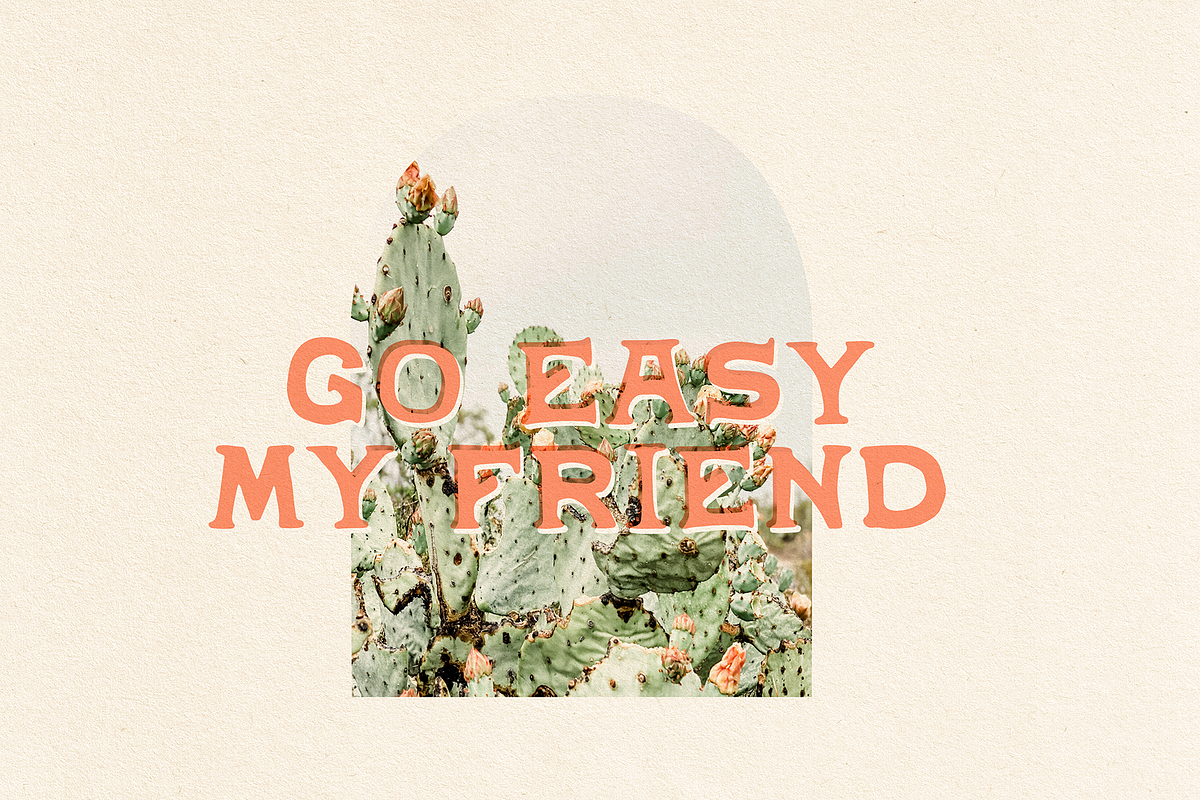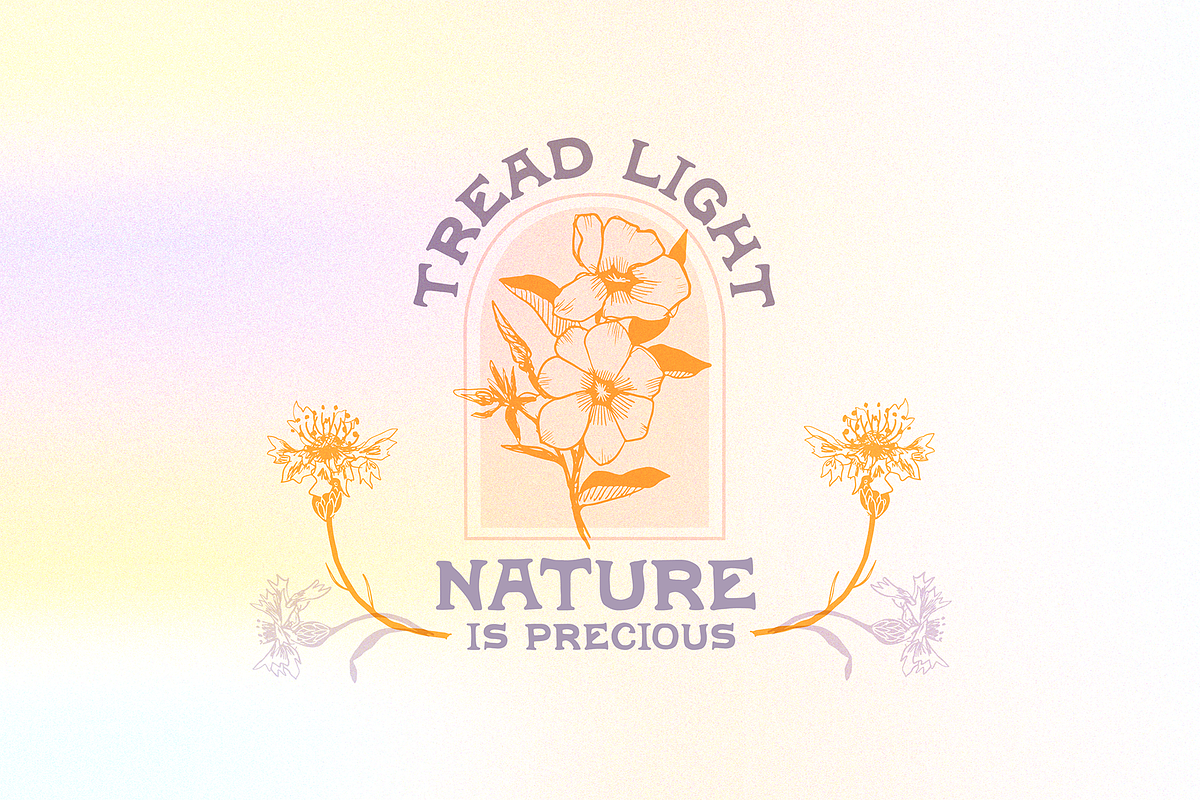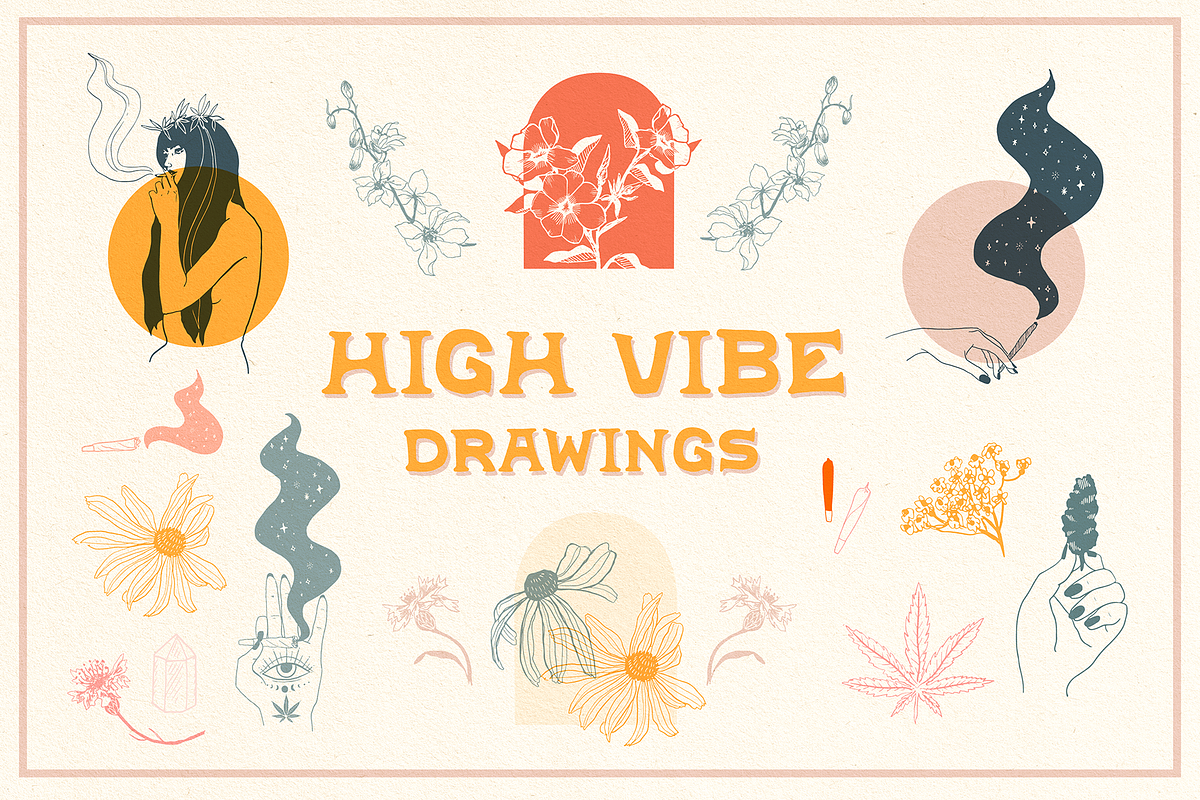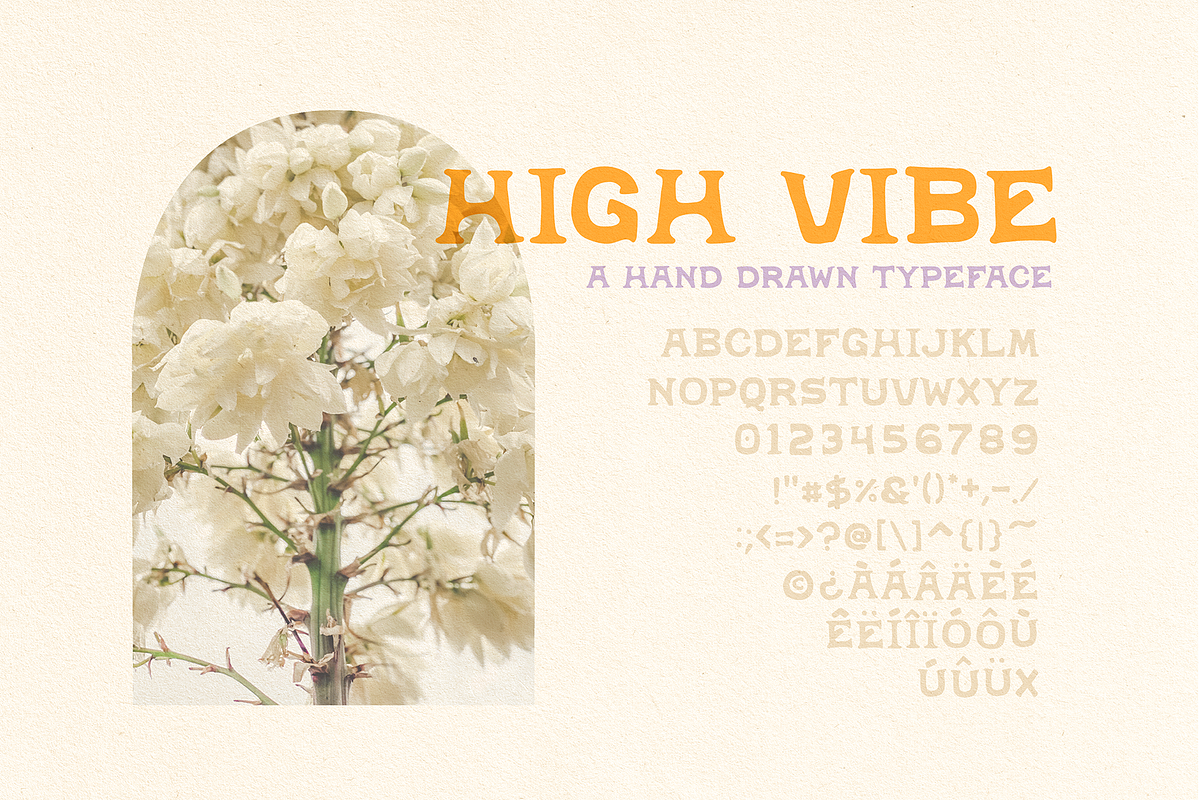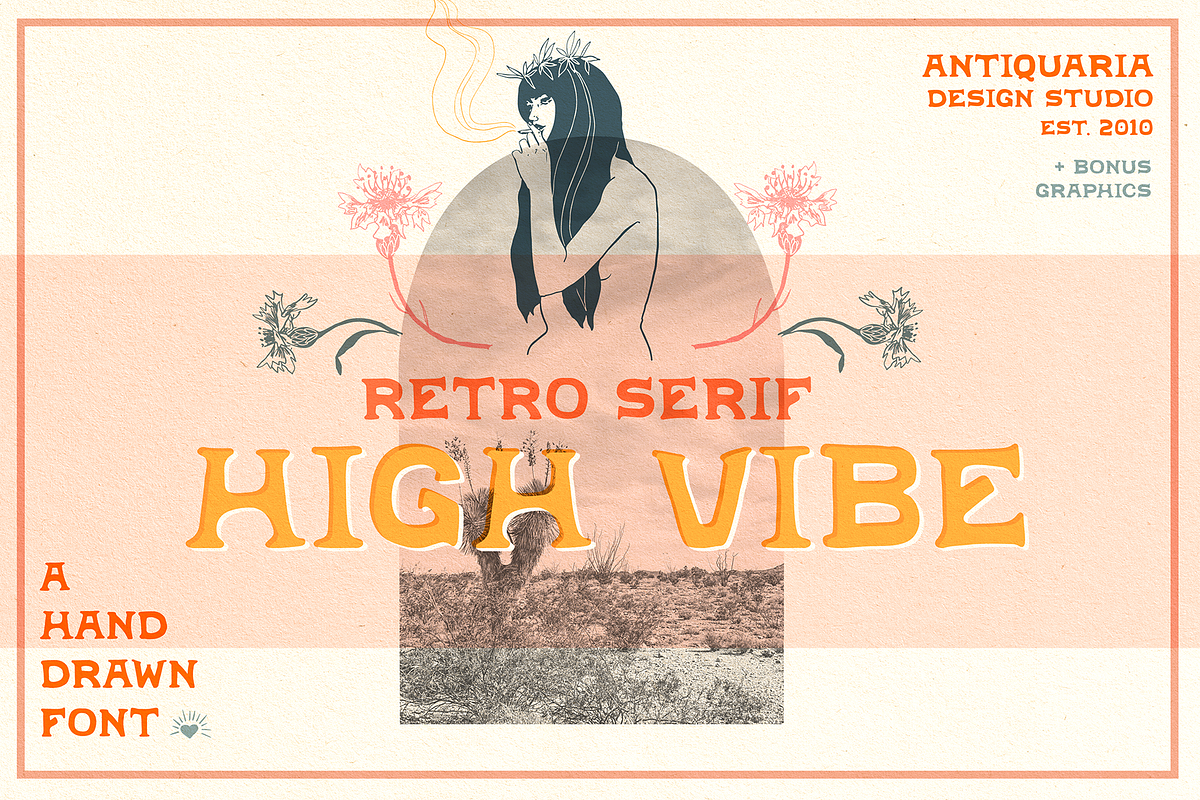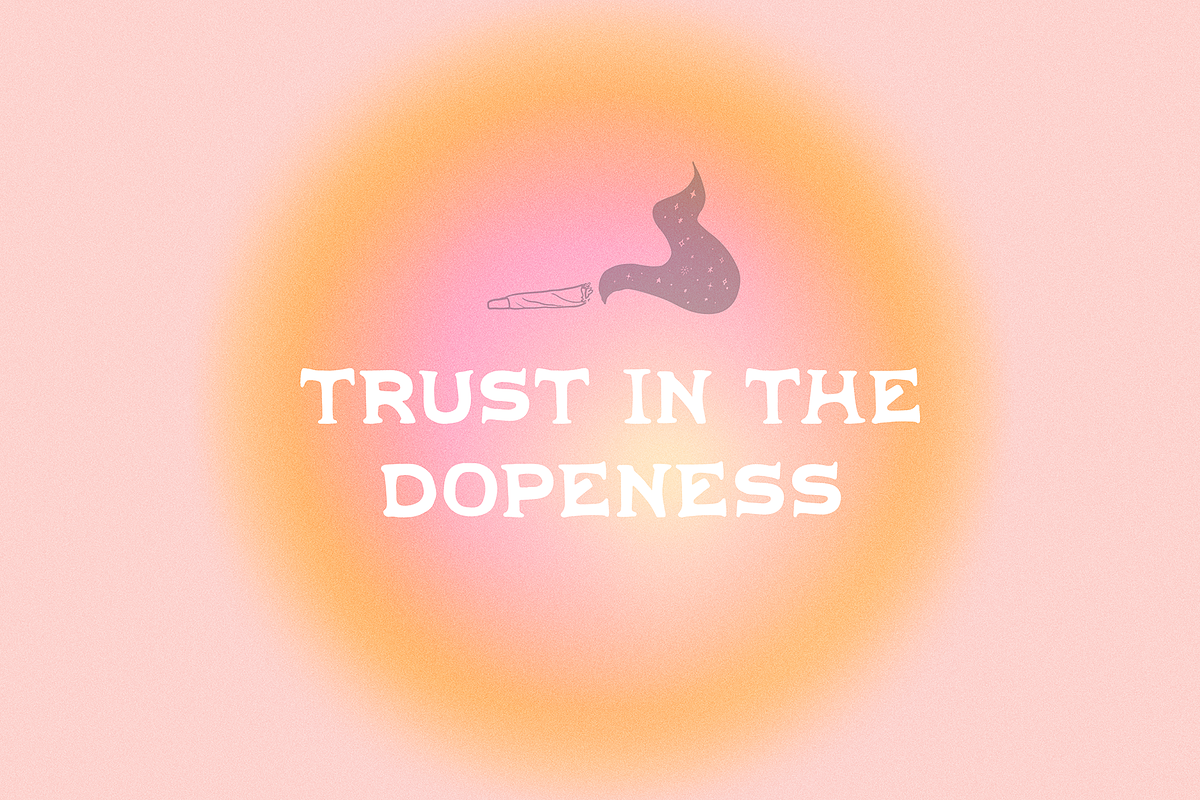
High Vibe - Vintage Retro Serif
High Vibe is a hand-drawn typeface drawing inspiration from the psychedelic posters of the 1970s yet made versatile enough for everyday use. It's vintage, retro, and modern all in one. Perfect for branding, marketing, invitations, or wherever your inspiration leads you. This typeface is fully functional with numbers and punctuation.